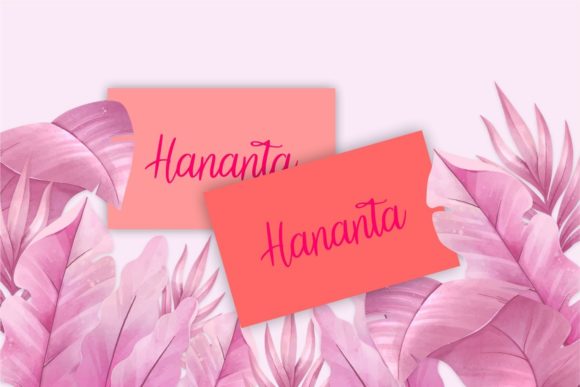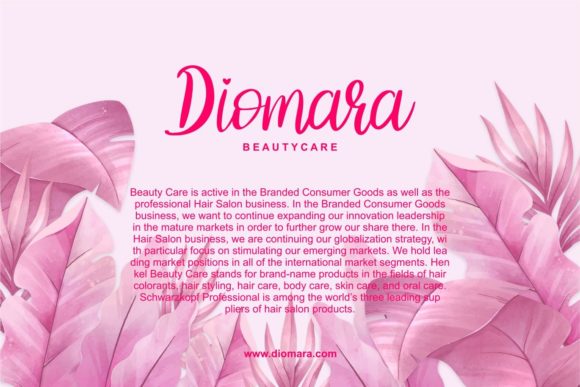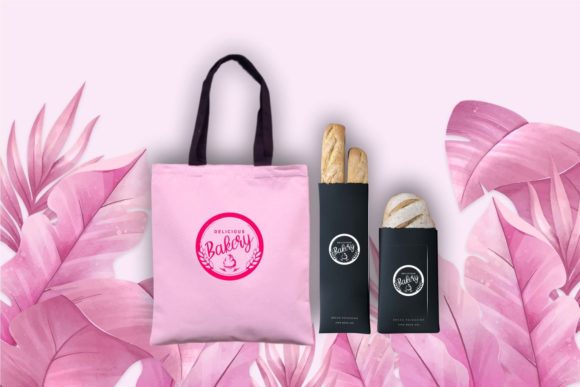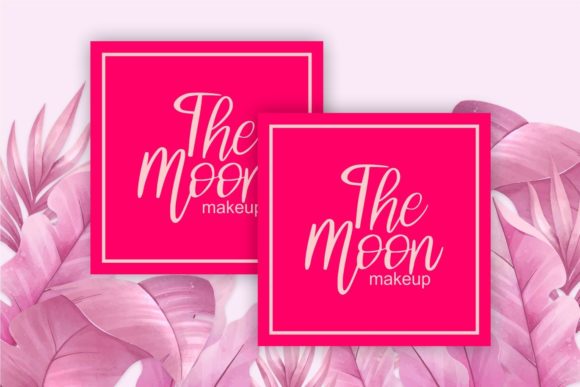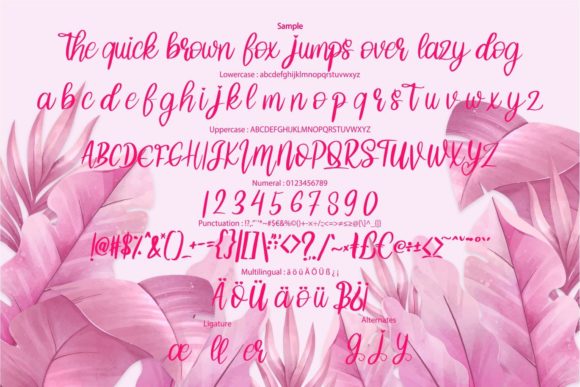
Barian Font: Elevate Your Designs with Elegant Script Typography
In the world of typography, a well-crafted font can make all the difference in elevating your design projects from ordinary to extraordinary. For designers and crafters seeking a touch of sophistication and elegance, the Barian Font is an exceptional choice. Inspired by timeless classic calligraphy, Barian is a contemporary script font that embodies impeccable form and a balanced aesthetic.
The Inspiration Behind Barian
Barian Font draws its inspiration from the rich tradition of classic calligraphy, where the art of beautiful handwriting has been perfected over centuries. The creators of Barian aimed to capture the essence of this timeless elegance and infuse it with a modern twist, making it suitable for a wide range of design applications. From elegant wedding invitations to sophisticated branding and advertising materials, Barian brings a level of refinement and poise to any project.
Design Characteristics of Barian
One of the standout features of the Barian Font is its balanced and varied design. Unlike some script fonts that may be too thin or too thick, Barian strikes the perfect balance. Its strokes are carefully crafted to provide a harmonious blend of boldness and subtlety, making it highly legible and visually appealing. This balance ensures that Barian can be used in various contexts, from digital media to print, without losing its impact or elegance.
Versatility and Application
The versatility of the Barian Font is one of its most compelling attributes. Designers and crafters can use Barian in a multitude of projects, including:
- Wedding and Event Stationery: Create stunning wedding invitations, save-the-date cards, and event posters that exude elegance and sophistication.
- Branding and Logo Design: Use Barian to craft unique and memorable brand identities that stand out in a crowded marketplace.
- Packaging: Elevate product packaging with Barian’s elegant typography, making your products more appealing to discerning consumers.
- Digital Media: Enhance your digital content, including website headers, social media graphics, and email newsletters, with Barian’s contemporary script style.
Why Choose Barian Font?
For designers and crafters looking for a font that combines classic elegance with a modern aesthetic, Barian is an excellent choice. Here are a few reasons why Barian stands out:
- Unique and Memorable: Barian’s distinctive style ensures that your designs leave a lasting impression.
- Highly Legible: Despite its elegant appearance, Barian maintains high legibility, making it suitable for both headings and body text.
- Easy to Pair: Barian’s balanced design makes it easy to pair with other fonts, offering endless possibilities for creative combinations.
The Barian Font is a beautiful addition to any designer’s or crafter’s toolkit. Its elegant script style, inspired by timeless classic calligraphy, brings a touch of sophistication and class to a wide range of projects. With its balanced and varied design, Barian is not only visually appealing but also highly versatile. Whether you’re working on wedding stationery, branding, packaging, or digital media, Barian is sure to enhance the beauty of your projects and make them stand out.
Embrace the elegance and contemporary charm of the Barian Font in your next design venture. Experience how this exquisite script font can elevate your work and leave a lasting impression on your audience.